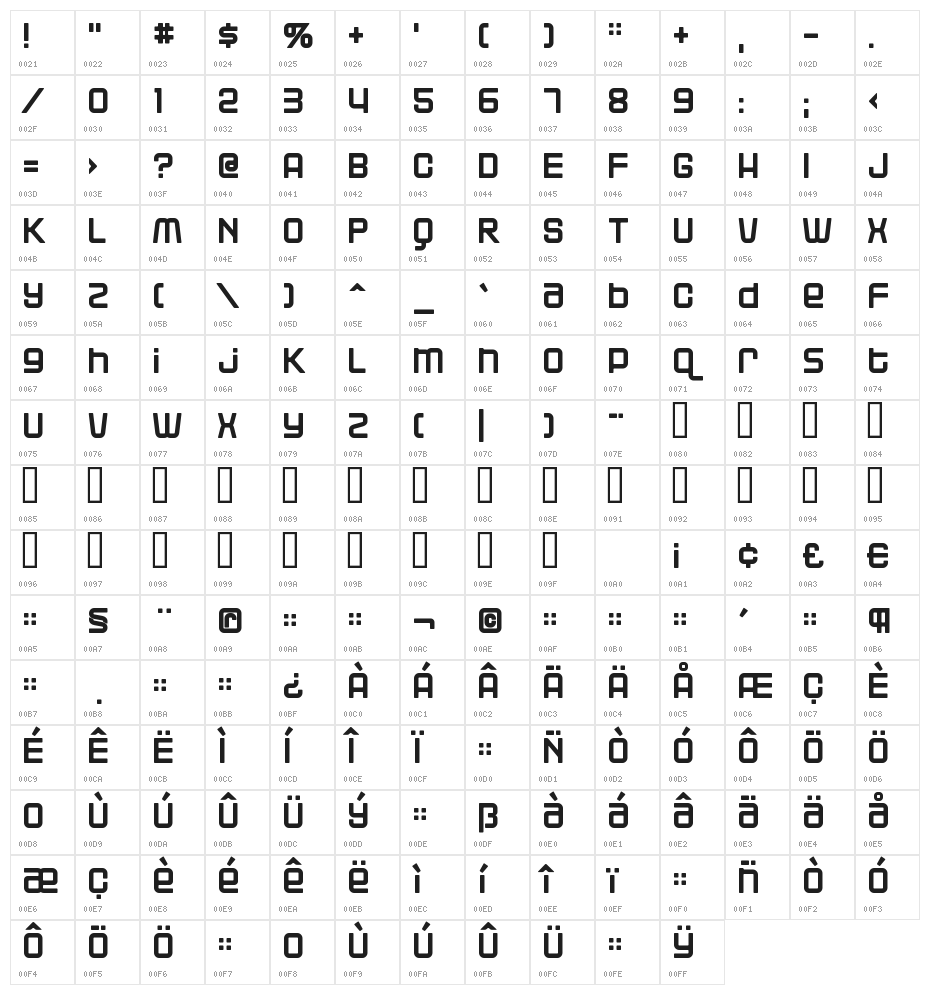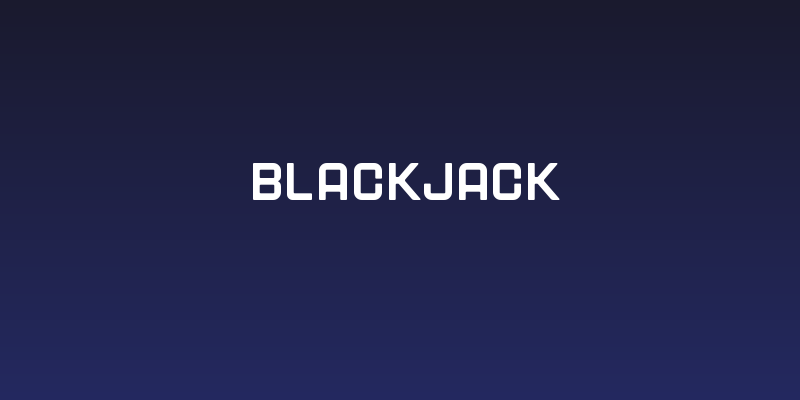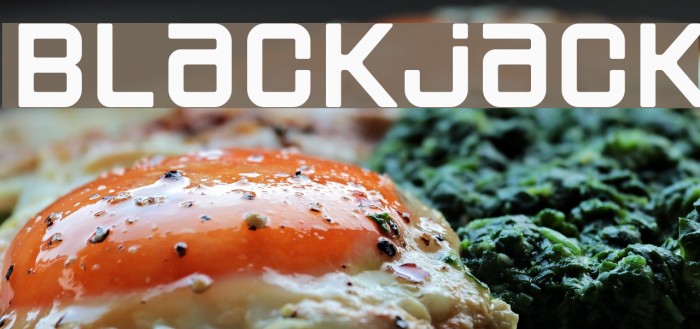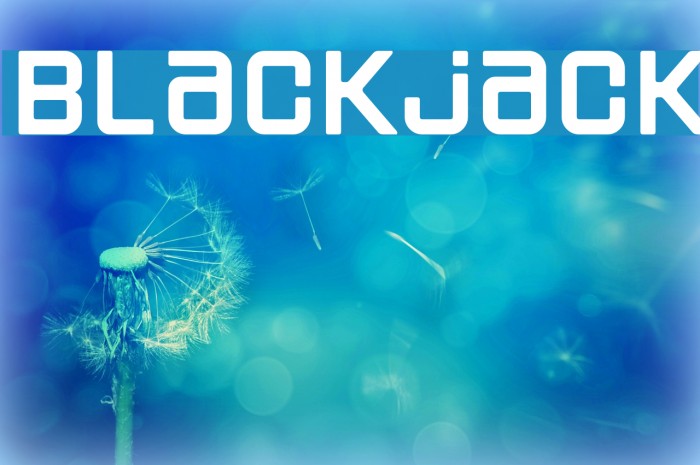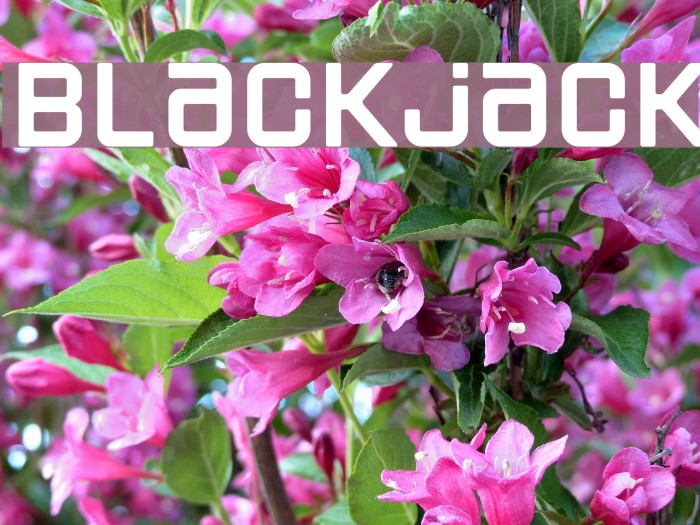
Blackjack Font
Blackjack Description
This font features a bold, geometric style with a modern and futuristic feel. The characters are constructed with uniform stroke widths, giving it a monospaced appearance. The rounded edges and corners provide a softer touch to the otherwise rigid structure, making it versatile for various design applications. The uppercase and lowercase letters maintain a consistent height, enhancing readability and uniformity. The numerals and special characters follow the same design principles, ensuring a cohesive look across all elements. This font's clean and structured design makes it suitable for digital interfaces and print media.
| Use Case | Headlines, Logos, Digital Interfaces |
| Proposed Projects | Ideal for technology branding, digital interfaces, video game graphics, and modern advertising. |